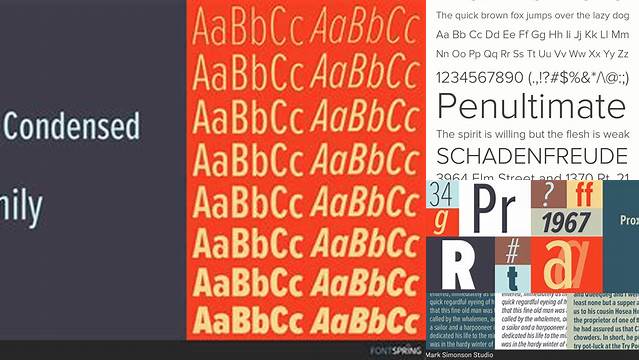
Proxima Nova Font Demo: A Fontspring Showcase
Hey guys! Ever wondered what makes a font truly stand out? Let's dive into the world of Proxima Nova, a super versatile typeface showcased on Fontspring. We're going to break down everything from its design and history to how you can use it in your projects. Trust me, by the end of this article, you'll be a Proxima Nova pro!
1. What is Proxima Nova?
So, what exactly is Proxima Nova? Well, it's a sans-serif typeface designed by Mark Simonson in 2005. Think of it as the cool, modern cousin of classic fonts like Futura and Helvetica. Proxima Nova is known for its clean lines and geometric shapes, making it super readable and aesthetically pleasing. You've probably seen it all over the place – from websites and apps to logos and print materials. Its versatility is one of its biggest strengths, making it a go-to choice for designers worldwide. The font family boasts a wide range of weights and styles, ensuring there's a Proxima Nova variant perfect for just about any design need. Whether you're aiming for a sleek, minimalist look or something more bold and impactful, Proxima Nova has got you covered. Seriously, the possibilities are endless, and that’s why it's such a popular choice among designers!
2. The History and Evolution of Proxima Nova
Let's take a little trip down memory lane, shall we? The story of Proxima Nova is actually pretty interesting. Mark Simonson, the mastermind behind this font, originally released Proxima Sans in 1994. But it wasn't until 2005 that Proxima Nova was born, a completely revamped and expanded version. This wasn't just a minor update; it was a full-blown redesign, adding more weights, widths, and even italics to the mix. This evolution made Proxima Nova even more versatile and adaptable to different design contexts. The upgrade from Proxima Sans to Proxima Nova addressed many of the limitations of the original, making it a truly comprehensive typeface family. This dedication to improvement and refinement is what sets Proxima Nova apart, solidifying its place as a modern classic in the world of typography. Over the years, it has remained a relevant and influential font, continuously proving its worth in various design applications.
3. Key Design Characteristics of Proxima Nova
Okay, let's get into the nitty-gritty of what makes Proxima Nova tick. One of the key characteristics is its geometric design. Think clean circles and straight lines – that's the essence of this font. It’s a sans-serif, which means it doesn't have those little decorative strokes (serifs) at the ends of the letters, giving it a modern, streamlined look. The uniform stroke weight and balanced letterforms contribute to its excellent readability, making it a fantastic choice for both body text and headlines. Plus, the extensive range of weights (from ultra-light to extra-bold) and styles (including italics) allows for a ton of flexibility in your designs. The attention to detail in the kerning (the spacing between letters) and overall letter proportions ensures a harmonious and professional appearance. In short, Proxima Nova’s design is all about clarity, simplicity, and versatility, making it a staple in any designer's toolkit.
5. Proxima Nova Font Family: Weights and Styles
The Proxima Nova font family is like a Swiss Army knife for designers – it’s got a tool for every job! This font family boasts an impressive array of weights and styles, from the delicate Thin and Light to the commanding ExtraBold and Black. Each weight has its own unique character, allowing you to create visual hierarchy and add emphasis where needed. And let's not forget the italics, which add a touch of elegance and flair. This extensive range of options means you can use Proxima Nova for everything from headlines and body text to captions and logos, all while maintaining a consistent and cohesive look. The versatility of the Proxima Nova family is truly one of its greatest assets, making it a go-to choice for designers looking for a reliable and adaptable typeface. Whether you need a subtle touch or a bold statement, Proxima Nova’s diverse weights and styles have got you covered.
6. Proxima Nova in Web Design
When it comes to web design, Proxima Nova is a total rockstar. Its clean, modern look makes it incredibly readable on screens of all sizes. This is super important because if your website's text is hard to read, people are going to bounce faster than a rubber ball. Proxima Nova’s versatility shines here too, working beautifully for both headlines and body text. Plus, it plays well with other fonts, so you can easily create a unique and visually appealing website. The font's geometric structure ensures that it renders crisply and clearly across different browsers and devices, maintaining a consistent user experience. Its wide range of weights and styles allows designers to establish a clear visual hierarchy, guiding users through the content effortlessly. In the fast-paced world of web design, Proxima Nova's reliability and readability make it an indispensable asset for creating engaging and user-friendly websites.
7. Proxima Nova in Print Design
Okay, let's talk print! Proxima Nova isn't just a digital darling; it's a print powerhouse too. Its clean lines and balanced letterforms make it super legible in printed materials, from brochures and magazines to posters and business cards. The font's versatility means it can handle both large headlines and small body text with equal grace. Whether you're designing a sleek, minimalist brochure or a bold, eye-catching poster, Proxima Nova can deliver. The precision of its design ensures that the text remains crisp and clear, even at smaller sizes, which is crucial for print applications. Its wide range of weights and styles allows for creative flexibility, enabling designers to craft visually stunning layouts that communicate effectively. Proxima Nova’s adaptability makes it a reliable choice for a wide range of print projects, ensuring that your message is conveyed clearly and stylishly.
8. Proxima Nova in Logo Design
Logos, logos, logos! They're the face of a brand, and Proxima Nova is a fantastic choice for logo design. Its modern, geometric look conveys a sense of professionalism and clarity, which is exactly what you want in a logo. Proxima Nova is clean and timeless, making sure your logo stays fresh for years to come. The font's simplicity and balance make it easily recognizable and memorable, which are crucial qualities for a successful logo. Its various weights and styles allow for creative exploration, enabling designers to tailor the logo to perfectly match the brand's identity. Proxima Nova works well in both standalone wordmarks and in combination with other graphic elements, providing flexibility in design applications. By choosing Proxima Nova, you're opting for a typeface that communicates reliability and modernity, setting the stage for a strong brand presence.
9. Pairing Proxima Nova with Other Fonts
Font pairing is an art, guys, and Proxima Nova is a total social butterfly! It plays well with so many other fonts. For a classic and clean look, try pairing it with a serif font like Merriweather or Playfair Display. If you're going for a more modern vibe, you can pair it with another sans-serif like Montserrat or Open Sans. The key is to create contrast while maintaining readability and visual harmony. Proxima Nova’s neutral and versatile nature allows it to complement a wide range of typefaces, making the font pairing process a breeze. Experimenting with different combinations can lead to unique and visually engaging designs. Whether you're aiming for elegance or simplicity, Proxima Nova provides a solid foundation for creative font pairings, ensuring your designs are both professional and aesthetically pleasing.
10. Proxima Nova vs. Helvetica: A Comparison
Proxima Nova and Helvetica: it’s the ultimate font showdown! Both are sans-serif fonts, but they have distinct personalities. Helvetica is a classic, known for its neutrality and timeless appeal. Proxima Nova, on the other hand, has a slightly more geometric and modern feel. Helvetica is more… neutral and Proxima Nova is cleaner. Proxima Nova has a wider range of weights and styles, giving you more flexibility. The choice really comes down to the specific look and feel you’re going for. Helvetica is a safe, reliable choice, while Proxima Nova offers a contemporary twist. Both fonts are incredibly versatile and widely used, but their subtle differences make them suitable for different design contexts. Proxima Nova’s geometric precision often lends a more structured and contemporary feel compared to Helvetica’s classic neutrality, making it a favorite for modern brands and designs.
11. Proxima Nova vs. Futura: A Comparison
Another epic font battle: Proxima Nova versus Futura! Both are geometric sans-serif fonts, but they have different vibes. Futura has a more distinctly geometric and almost art-deco feel, while Proxima Nova is a bit softer and more rounded. Futura can sometimes feel a bit more formal and Proxima Nova gives a more accessible feeling. Proxima Nova’s wider range of weights and styles also gives it an edge in terms of versatility. If you want something with a strong, geometric statement, Futura is a great choice. But if you prefer a more versatile and contemporary option, Proxima Nova is the way to go. Futura’s sharp angles and perfect circles make it a bold choice, while Proxima Nova’s slightly softened geometry provides a more approachable and modern feel, making it a popular choice for a wide array of design applications.
12. Using Proxima Nova for Headlines
Headlines are your chance to grab attention, and Proxima Nova is excellent for headlines. Its clean, bold forms command attention without being too overwhelming. The heavier weights, like ExtraBold and Black, are perfect for making a statement. The font's clarity ensures that your message is conveyed clearly, even at larger sizes. Using Proxima Nova for headlines creates a sense of modernity and professionalism, drawing readers in and setting the tone for the content that follows. Its geometric precision and balanced letterforms contribute to a visually striking headline that stands out without being overly decorative. Whether you're designing a website, a poster, or a print advertisement, Proxima Nova can make your headlines pop.
13. Using Proxima Nova for Body Text
Readability is key for body text, and Proxima Nova excels in this area. Its balanced letterforms and uniform stroke weight make it incredibly easy to read, even in long passages. The regular and light weights are ideal for body text, ensuring a comfortable reading experience. Proxima Nova’s clarity and simplicity make it a reliable choice for conveying information effectively. The font’s consistent appearance across different sizes and weights ensures that the text remains legible and engaging. By using Proxima Nova for body text, you create a seamless reading experience, allowing readers to focus on the content rather than the typeface itself. Its unobtrusive yet elegant design makes it a perfect choice for books, articles, websites, and any other text-heavy application.
14. Proxima Nova in Branding
Branding is all about creating a consistent and recognizable identity, and Proxima Nova can play a huge role in this. Its versatility and modern aesthetic make it suitable for a wide range of brands, from tech startups to established corporations. Using Proxima Nova across all your branding materials – from your logo and website to your business cards and marketing collateral – creates a cohesive and professional image. The font’s adaptability allows it to convey a variety of brand personalities, from sleek and minimalist to bold and dynamic. Its clean lines and geometric precision project a sense of reliability and modernity, which can be crucial for building trust and recognition. By incorporating Proxima Nova into your branding strategy, you can create a visual identity that is both timeless and contemporary.
15. Proxima Nova in UI/UX Design
User interface (UI) and user experience (UX) design are all about making things easy and intuitive, and Proxima Nova is a fantastic choice for this. Its readability and clean design make it ideal for menus, buttons, labels, and other UI elements. The font's clarity ensures that users can easily navigate and interact with your app or website. Proxima Nova’s modern aesthetic also contributes to a polished and professional user experience. Its adaptability allows it to be used effectively across different platforms and devices, maintaining a consistent look and feel. By using Proxima Nova in your UI/UX design, you’re prioritizing clarity and usability, creating an interface that is both visually appealing and highly functional.
16. Proxima Nova in Mobile App Design
Mobile app design presents unique challenges, but Proxima Nova rises to the occasion. Its legibility at small sizes makes it perfect for mobile screens, where space is limited. The font’s clean design ensures that text remains clear and readable, even on high-resolution displays. Proxima Nova’s versatility allows it to be used effectively for both headings and body text, creating a cohesive visual experience within the app. Its modern aesthetic aligns well with the sleek and minimalist designs often found in mobile apps. By choosing Proxima Nova for your mobile app design, you’re ensuring that your content is accessible and engaging, providing users with a seamless and enjoyable experience.
17. Licensing Proxima Nova from Fontspring
Okay, let's talk licenses! Getting a Proxima Nova license from Fontspring is super straightforward. Fontspring offers a perpetual license, so you only pay once, and the font is yours forever. No hidden fees or sneaky subscriptions! They also have a clear and easy-to-understand license agreement, which is a huge plus. Fontspring offers various licensing options to suit different needs, whether you’re using the font for personal projects, commercial work, or web design. Their licensing terms are designed to be fair and transparent, giving you peace of mind. Plus, their customer support team is always there to help if you have any questions. By licensing Proxima Nova from Fontspring, you’re not only getting a fantastic font but also ensuring that you’re using it legally and ethically.
18. Proxima Nova for Social Media Graphics
Social media is all about grabbing attention quickly, and Proxima Nova can help you do just that. Its clean, modern look makes your graphics stand out in the busy social media landscape. Whether you're creating eye-catching headlines or informative captions, Proxima Nova delivers clarity and style. The font’s versatility allows it to be used effectively across various social media platforms, maintaining a consistent brand image. Its readability ensures that your message is easily understood, even in the fast-paced world of social media. By incorporating Proxima Nova into your social media graphics, you’re creating visuals that are both engaging and professional, helping you connect with your audience and build your brand.
19. Proxima Nova for Email Marketing
Email marketing is all about communication, and Proxima Nova ensures your message gets across clearly. Its readability and clean design make it ideal for email newsletters and marketing campaigns. The font’s consistent appearance across different email clients and devices ensures that your message looks great, no matter how it’s viewed. Proxima Nova’s versatility allows it to be used effectively for both headings and body text, creating a cohesive and professional email design. Its modern aesthetic conveys a sense of reliability and trustworthiness, which can be crucial for building customer relationships. By using Proxima Nova in your email marketing efforts, you’re prioritizing clarity and readability, ensuring that your message resonates with your audience.
20. Proxima Nova for Presentations
Presentations need to be clear and engaging, and Proxima Nova is a stellar choice. Its readability and clean design make your slides easy to follow, ensuring that your audience stays focused. The font’s versatility allows it to be used effectively for both headings and body text, creating a consistent and professional look. Proxima Nova’s modern aesthetic adds a touch of sophistication to your presentation, enhancing your credibility. Whether you’re presenting in person or online, Proxima Nova ensures that your message is conveyed clearly and effectively. By using Proxima Nova for your presentations, you’re prioritizing clarity and visual appeal, helping you deliver a memorable and impactful presentation.
21. Creating Visual Hierarchy with Proxima Nova
Visual hierarchy is key to good design, and Proxima Nova makes it easy to achieve. By using different weights and styles within the Proxima Nova family, you can guide the viewer's eye and emphasize important information. For example, you might use ExtraBold for headlines, Regular for body text, and Light for captions. This creates a clear and intuitive reading experience. The font’s wide range of options allows for subtle yet effective variations, enhancing the overall structure of your design. Proxima Nova’s consistent design ensures that the hierarchy feels natural and cohesive, rather than jarring. By mastering visual hierarchy with Proxima Nova, you can create designs that are both visually appealing and highly functional.
22. The Impact of Proxima Nova on User Experience
The impact of Proxima Nova on user experience (UX) is significant. Its readability and clean design contribute to a more enjoyable and efficient user experience. When text is easy to read, users can focus on the content rather than struggling with the typeface. Proxima Nova’s versatility allows it to be used effectively across various interfaces and platforms, maintaining a consistent and user-friendly experience. Its modern aesthetic also enhances the overall perception of the design, making it feel polished and professional. By prioritizing readability and clarity with Proxima Nova, you’re creating a user experience that is both intuitive and engaging.
23. Proxima Nova in Editorial Design
Editorial design requires a typeface that is both legible and visually appealing, and Proxima Nova fits the bill perfectly. Its clean lines and balanced letterforms make it ideal for magazines, newspapers, and books. The font’s versatility allows it to be used effectively for both headlines and body text, creating a cohesive and professional layout. Proxima Nova’s modern aesthetic adds a touch of sophistication to editorial designs, enhancing the overall reading experience. Whether you’re designing a sleek magazine or a classic novel, Proxima Nova provides the clarity and elegance needed to create a compelling and readable publication.
24. Proxima Nova for Information Design
Information design is all about clarity and communication, and Proxima Nova is an excellent choice for this field. Its readability and clean design make complex information easier to digest. Whether you’re creating infographics, charts, or reports, Proxima Nova ensures that your message is conveyed clearly and effectively. The font’s versatility allows it to be used effectively for labels, captions, and body text, creating a cohesive visual system. Proxima Nova’s modern aesthetic also adds a touch of professionalism to information designs, enhancing their credibility. By using Proxima Nova for information design, you’re prioritizing clarity and accessibility, ensuring that your audience can easily understand and engage with the information presented.
25. Tips for Using Proxima Nova Effectively
Want to use Proxima Nova like a pro? Here are a few tips! First, pay attention to weight and style. Use heavier weights for headlines and lighter weights for body text to create visual hierarchy. Second, consider your font pairing. Proxima Nova plays well with others, but it’s important to choose a font that complements its style. Third, don’t be afraid to experiment with different sizes and spacing to achieve the desired effect. And finally, always prioritize readability. Proxima Nova is a versatile font, but its primary strength is its clarity. By following these tips, you can harness the full potential of Proxima Nova and create stunning designs.
26. Common Mistakes to Avoid When Using Proxima Nova
Even with a great font like Proxima Nova, it’s easy to make mistakes. One common mistake is overuse. While Proxima Nova is versatile, using too many weights and styles can create a cluttered and confusing design. Another mistake is poor font pairing. Choosing a font that clashes with Proxima Nova can detract from its elegance and readability. Additionally, neglecting kerning and leading can diminish the overall visual appeal. Finally, using Proxima Nova in contexts where it’s not appropriate (e.g., overly formal or decorative designs) can undermine its effectiveness. By avoiding these common mistakes, you can ensure that you’re using Proxima Nova to its full potential.
27. The Future of Proxima Nova in Design
What's the future hold for Proxima Nova? Well, given its enduring popularity and versatility, it’s safe to say that Proxima Nova will continue to be a staple in the design world for years to come. Its clean, modern aesthetic and excellent readability ensure that it remains relevant in an ever-evolving design landscape. As new technologies and design trends emerge, Proxima Nova will likely adapt and evolve, maintaining its position as a go-to typeface for designers worldwide. Its timeless appeal and adaptability make it a safe bet for any project, ensuring that Proxima Nova will remain a prominent player in the world of typography.
28. Proxima Nova’s Place in the History of Typography
Proxima Nova has definitely earned its place in the history of typography. As a modern geometric sans-serif, it builds on the legacy of fonts like Futura and Helvetica while carving out its own distinct identity. Its widespread adoption across various design disciplines is a testament to its versatility and appeal. Proxima Nova represents a contemporary approach to typography, balancing clarity and style in a way that resonates with designers and audiences alike. Its impact on the design world is undeniable, and its influence will likely be felt for generations to come. Proxima Nova is more than just a font; it’s a modern classic.
29. Proxima Nova: A Designer’s Best Friend
Let's be honest, Proxima Nova is like a designer’s best friend. It’s reliable, versatile, and always makes you look good! Whether you’re working on a website, a logo, a brochure, or anything in between, Proxima Nova is a solid choice. Its clean, modern aesthetic and excellent readability make it a go-to typeface for countless designers around the world. The font's wide range of weights and styles provides the flexibility needed to tackle any design challenge. Proxima Nova’s consistent performance across different platforms and applications ensures that your designs always look their best. In the ever-changing world of design, Proxima Nova is a constant, a dependable companion that helps you bring your creative visions to life.
30. Final Thoughts on Proxima Nova and Fontspring
So, there you have it, guys! Proxima Nova is a truly fantastic font, and Fontspring is a great place to get it. Fontspring’s perpetual licensing and excellent customer service make the process smooth and hassle-free. Proxima Nova’s versatility and timeless appeal make it a valuable addition to any designer’s toolkit. Whether you’re a seasoned pro or just starting out, Proxima Nova is a typeface that you can rely on. Its impact on the design world is undeniable, and its future looks bright. Thanks for joining me on this deep dive into Proxima Nova and Fontspring. Happy designing!